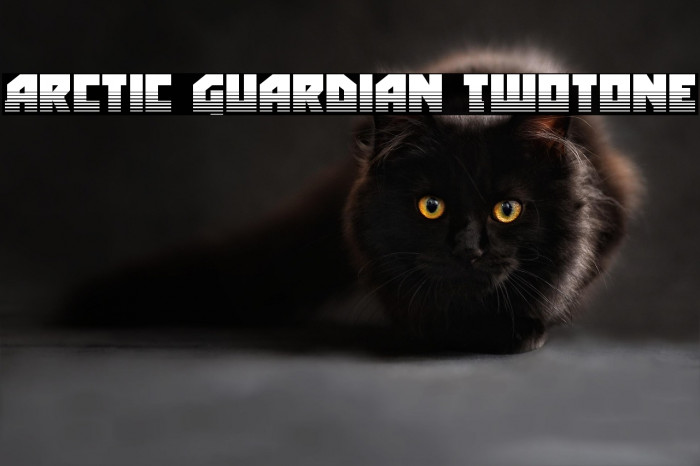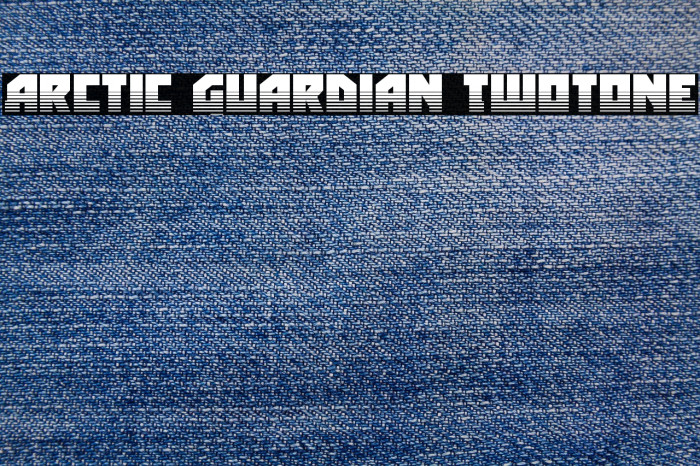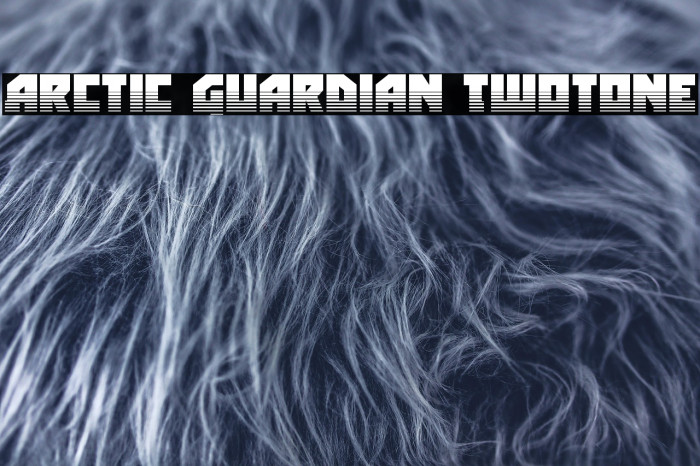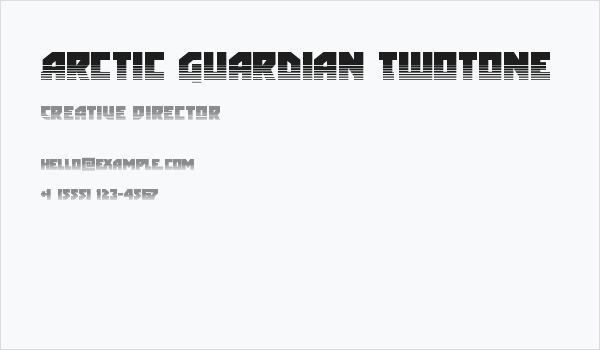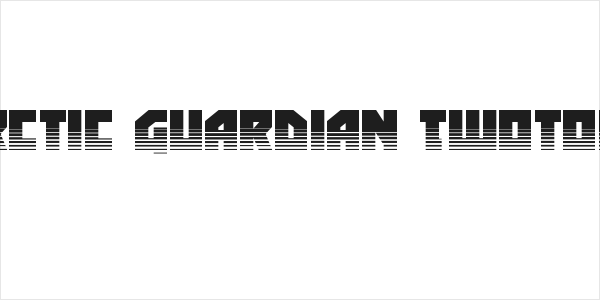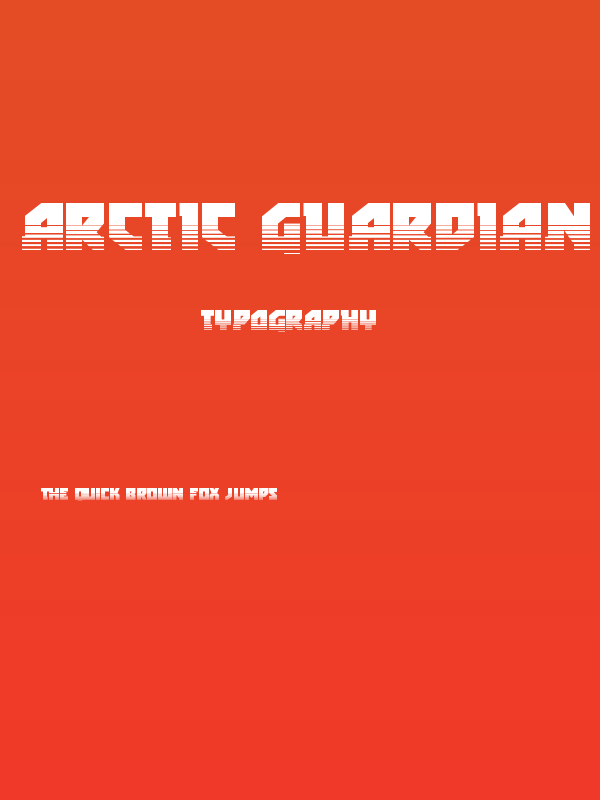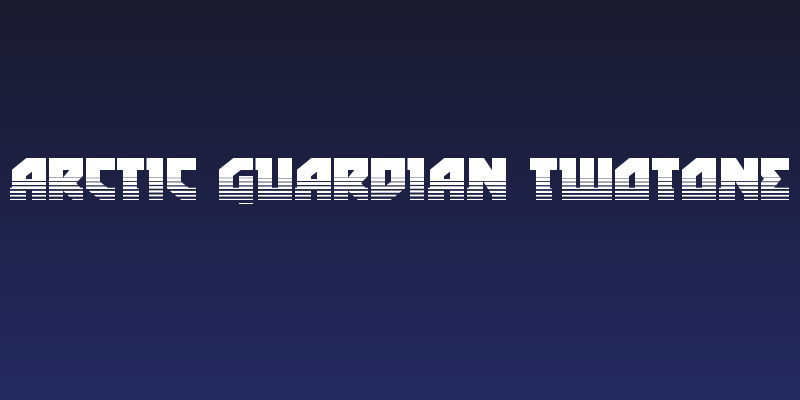
Arctic Guardian Twotone Font
Arctic Guardian Twotone Description
This font features a bold, futuristic design with a distinctive two-tone effect. Each character is crafted with horizontal lines that create a gradient-like appearance, giving the font a dynamic and modern feel. The uppercase letters are angular and geometric, while the lowercase letters maintain a consistent style, ensuring readability. The numbers and special characters are designed to match the bold aesthetic, making them stand out. This font is ideal for projects that require a strong visual impact, such as posters, logos, and headlines. Its unique style is both eye-catching and versatile, suitable for a variety of creative applications.
| Proposed Projects | Ideal for posters, logos, headlines, and any project needing a strong visual impact. |